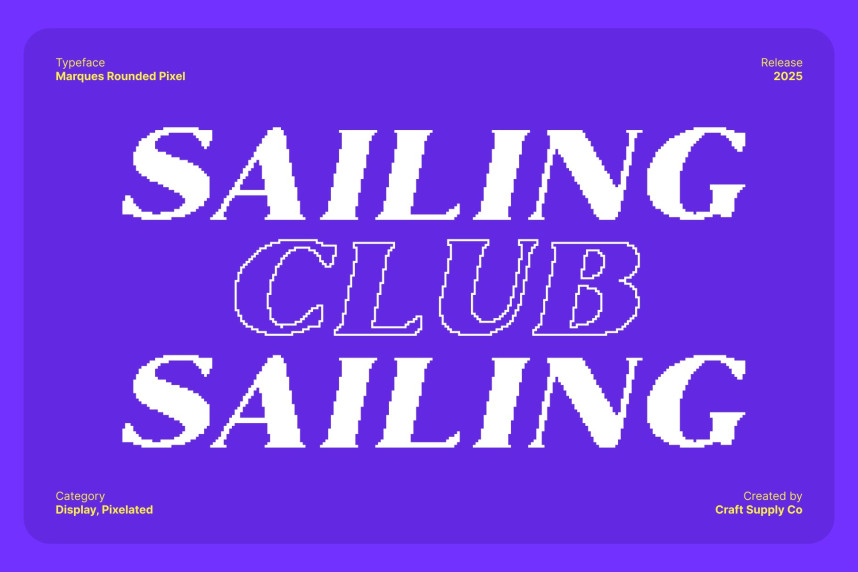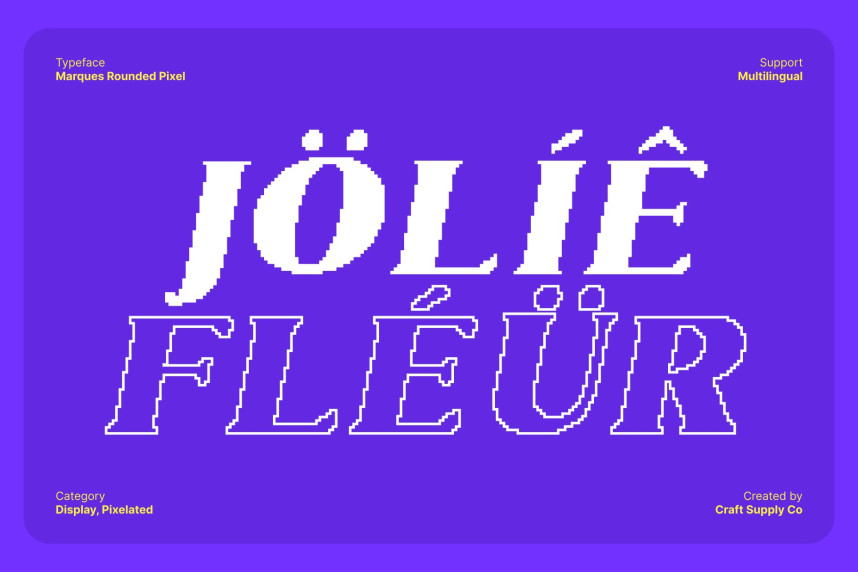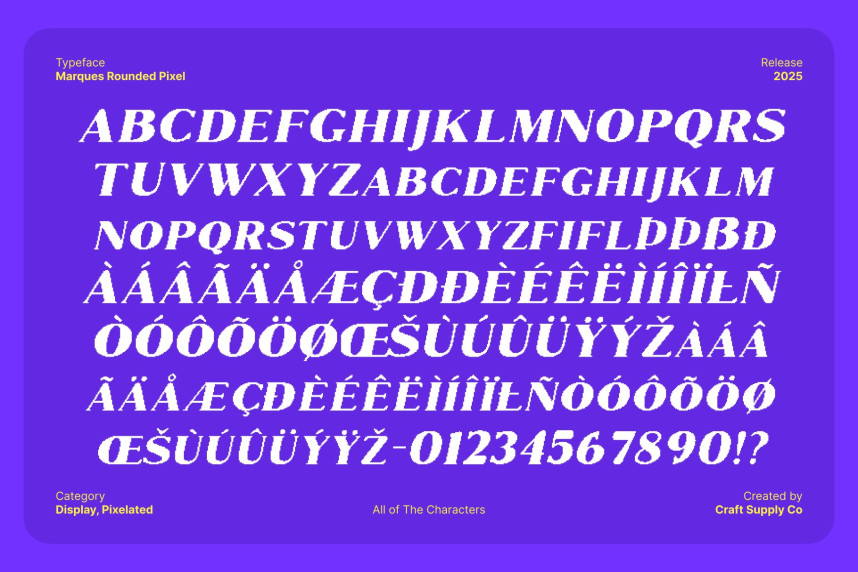
Marques Rounded Pixel
Marques Rounded Pixel Font – Modern Serif Display Font with Pixel Precision Clean Slender Lines for Sophisticated Professionalism. This is a classic modern serif display font designed with clean, slender lines that exude elegance and professionalism. Each character is carefully crafted to maintain clarity and refinement, making it ideal for projects that demand a polished, high-end appearance. Its subtle curves and smooth edges create a balanced, timeless look.